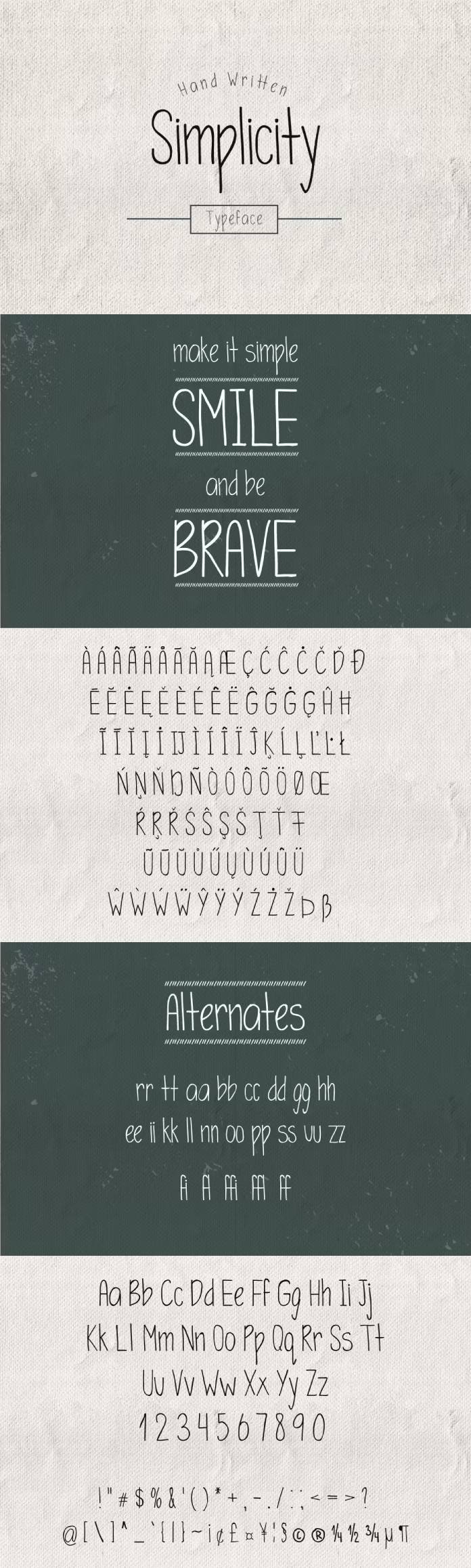
Embrace the Handcrafted Elegance: Exploring Simplicity Typeface
In a world where digital design often dominates, there’s an undeniable allure in bringing a touch of hand-drawn into our projects. Enter the Simplicity typeface—a stunning embodiment of simplicity and elegance merged into one handcrafted font. This versatile typeface offers a unique blend of sophistication and a personal, handmade aesthetic that elevates any project it graces.
The Art of Simplicity
At its core, Simplicity is precisely what its name suggests—an effortlessly elegant font designed with a hand-drawn touch. Its charm lies in its simplicity; every stroke exudes a sense of authenticity and warmth, reminiscent of carefully crafted handwritten letters.
A Personal Touch
What sets Simplicity apart is its ability to infuse projects with a sense of personality. In a sea of standard fonts, its hand-drawn quality brings a personal touch, creating a connection between the creator and the audience. Whether used in branding, invitations, posters, or digital graphics, this typeface speaks volumes about craftsmanship and individuality.
Versatility at Its Best
One of the defining features of Simplicity is its versatility. The typeface offers a blend of uppercase and lowercase letters with an abundance of alternates. This variation allows designers to play with different letterforms, ensuring that each project feels unique and tailored to its specific purpose.
Adding Character to Projects
The beauty of Simplicity lies in its ability to seamlessly blend into various design contexts while adding character. For instance, when used in branding, it can evoke a sense of approachability and authenticity, making the brand stand out in a crowded market. In creative projects like posters or social media graphics, the typeface injects a dose of personality that captivates the audience.
Embracing Handcrafted Fonts in a Digital Age
In an era dominated by digital design tools, the allure of hand-drawn fonts like Simplicity is more captivating than ever. They bridge the gap between the digital and the handmade, reminding us of the human touch and imperfections that add depth and character to design.
Conclusion: Bringing Simplicity to Life
The Simplicity typeface isn’t just about its elegant strokes or its meticulously crafted letters; it’s about the stories it tells and the emotions it evokes. Its simplicity and elegance go hand in hand, offering designers a powerful tool to add a personal, handmade feel to their projects.
In a world where uniqueness is cherished, Simplicity stands as a testament to the enduring charm of handcrafted fonts. Its ability to infuse projects with character and authenticity makes it a timeless addition to any designer’s toolkit. So, why not embrace the artful simplicity of Simplicity and let your projects speak with a touch of handcrafted elegance?
Note: The Simplicity typeface is a work of art in itself, and its application is limited only by the imagination of the designer.